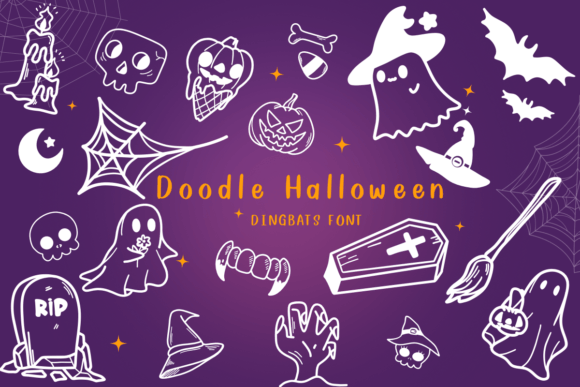
Get Ready for a Spooktacular Design
As a designer, there’s nothing quite like the thrill of brainstorming new ideas for a creative project. Maybe it’s a wedding invitation, a DIY craft, or a spooky decoration for Halloween. Whatever the project, one thing’s for sure – the right font can make all the difference. And that’s where the Doodle Halloween Font comes in.
This adorable dingbats font has a sketch-style charm that’s perfect for adding a personal touch to your designs. With its playful and whimsical vibe, the Doodle Halloween Font is a valuable asset for any designer looking to create something truly unique. Whether you’re working on a spooky-themed project or just want to add some seasonal flair, this font is sure to deliver.
Doodle Halloween Font Key Features
- Font Style: A spooky, handwritten font perfect for Halloween-themed designs and decorations.
- Character Set: Includes a wide range of characters, including uppercase and lowercase letters, numbers, and punctuation marks.
- Unique Characteristics: Features a unique, doodle-like style with varying line widths and irregular shapes, adding a touch of handmade charm to designs.
Doodle Halloween Font Review
I recently had the chance to work with the Doodle Halloween Font, and I must say it’s a fun addition to any spooky-themed design project. ✨ The hand-drawn style gives it a whimsical feel that’s perfect for creating a playful atmosphere. ✨ The font is highly customizable, allowing you to adjust the color, size, and style to fit your design needs.
Here are some of the font’s key features:
- Highly customizable with over 100 glyphs
- Supports a wide range of languages
- ⚠️ The font may not be suitable for formal or professional designs
- ⚠️ Some users may find the hand-drawn style difficult to read in certain contexts
Overall, I’m impressed with the Doodle Halloween Font‘s versatility and creativity. While it may not be the best choice for every design project, it’s a great addition to any spooky-themed collection. With a little creativity, you can use this font to create some truly unforgettable designs.
The Doodle Halloween Font is perfect for creating spooky and fun designs for Halloween-themed projects, such as:
– Invitations and party decorations
– Social media graphics and advertisements
– Posters and flyers
– Digital art and illustrations